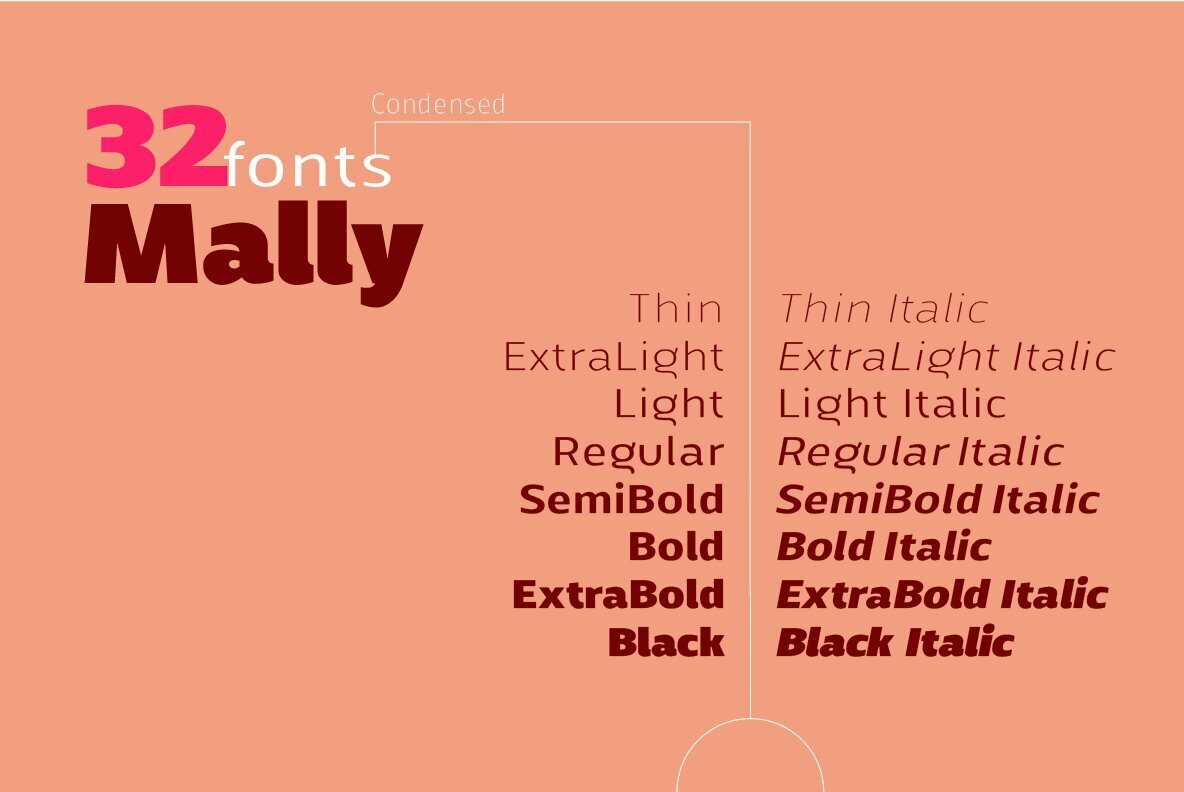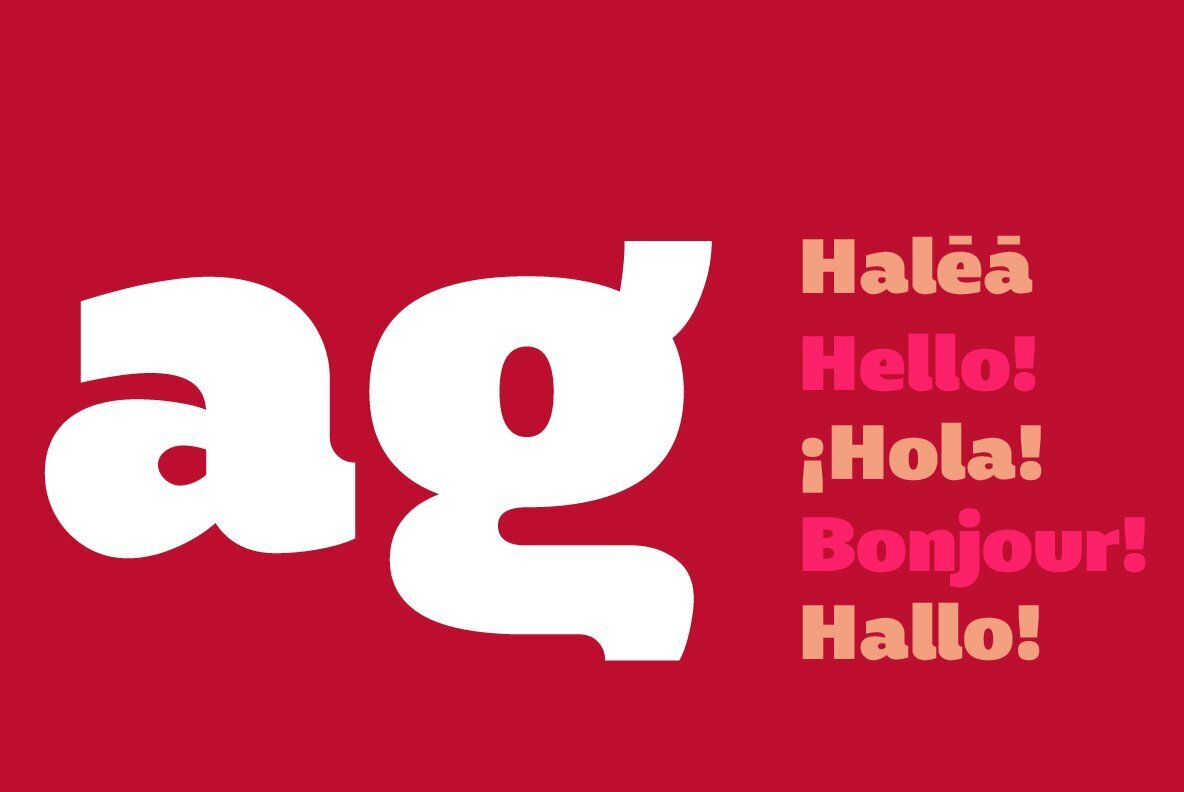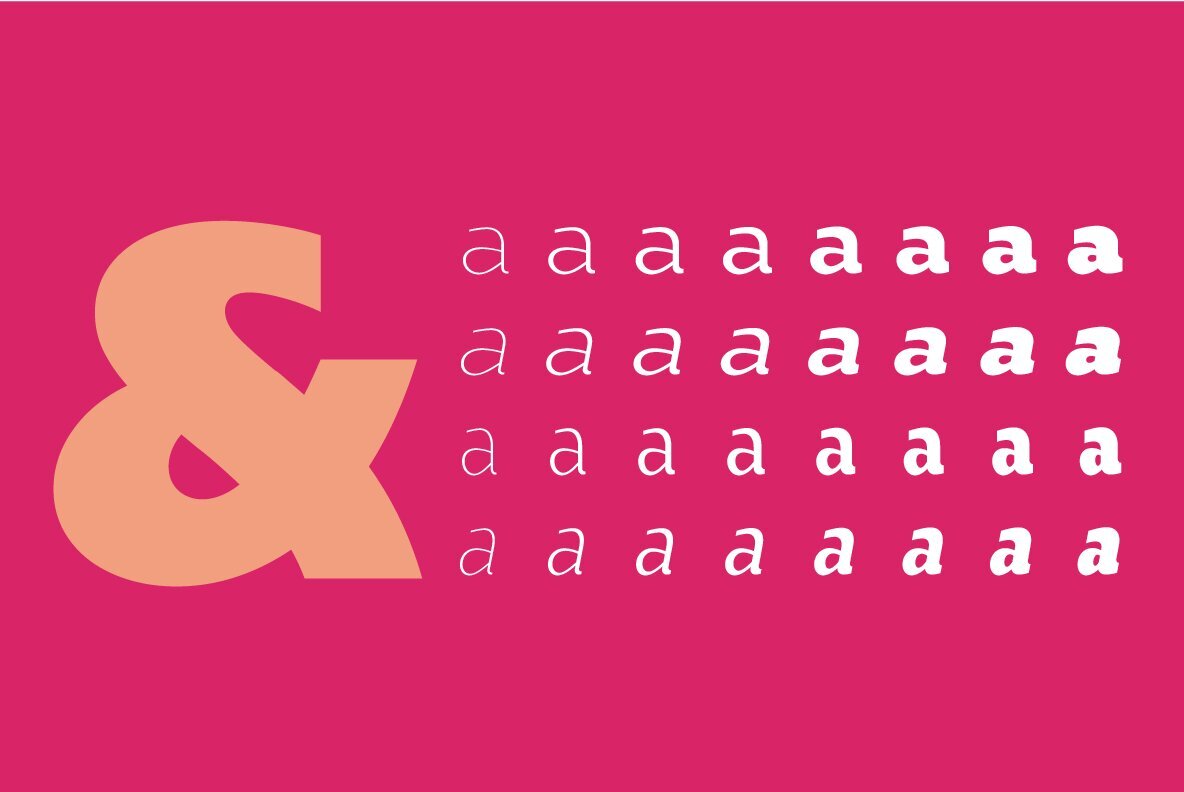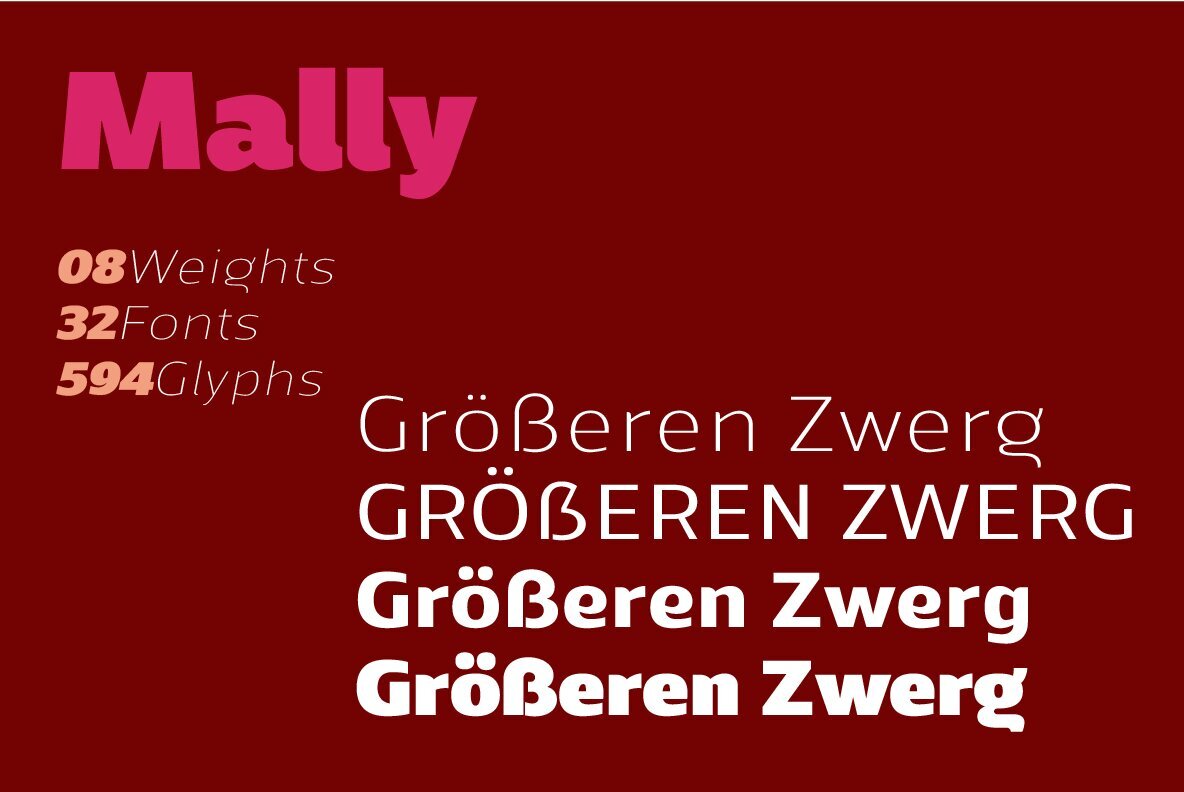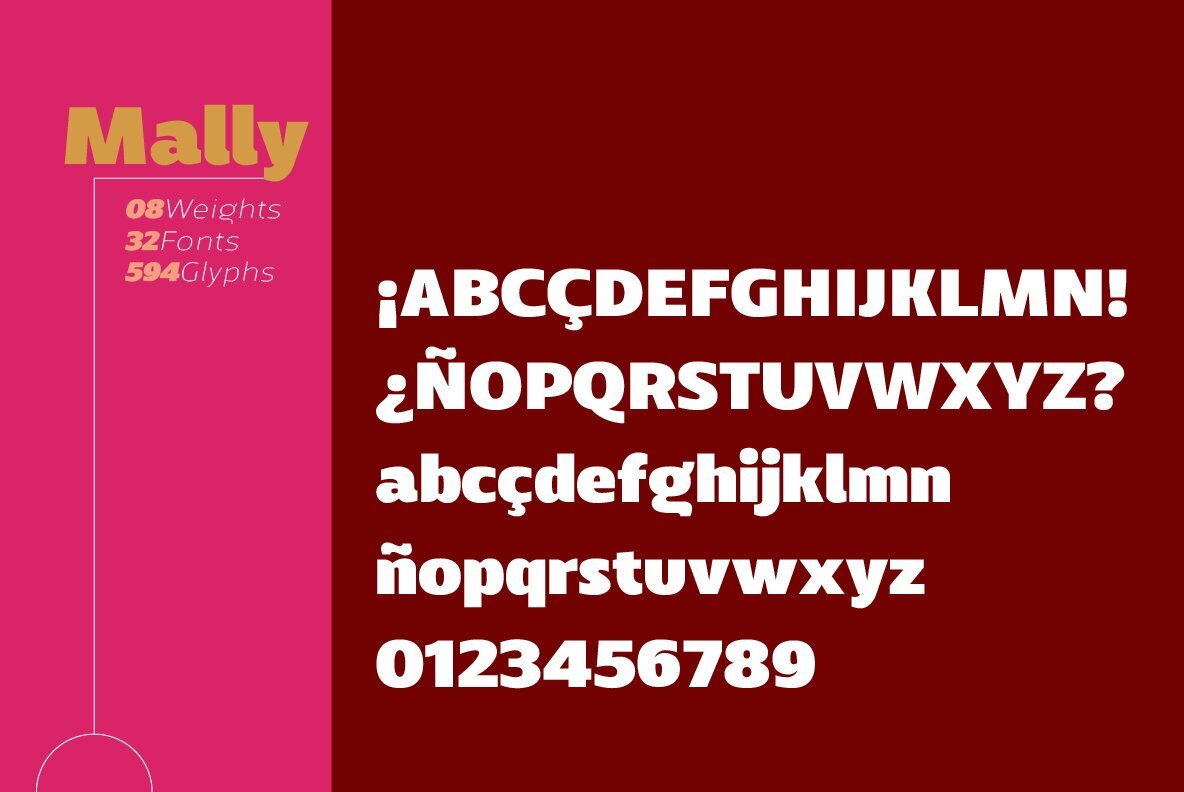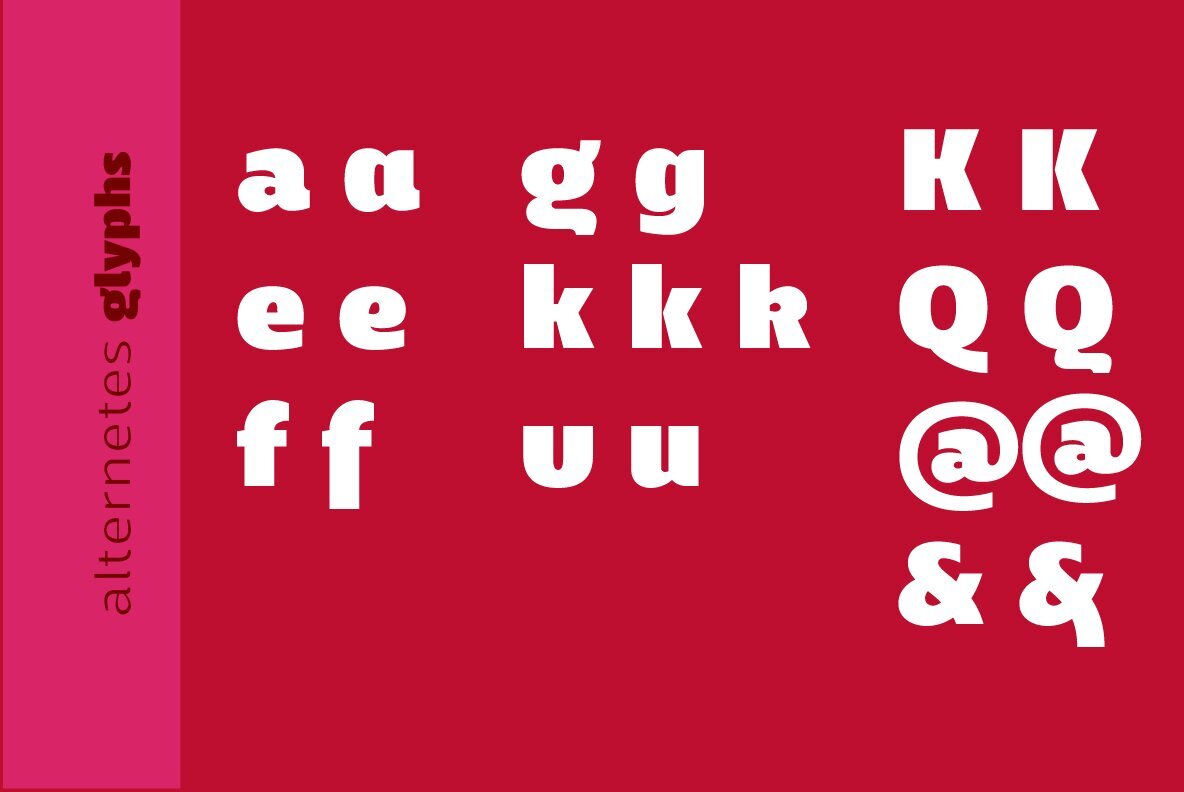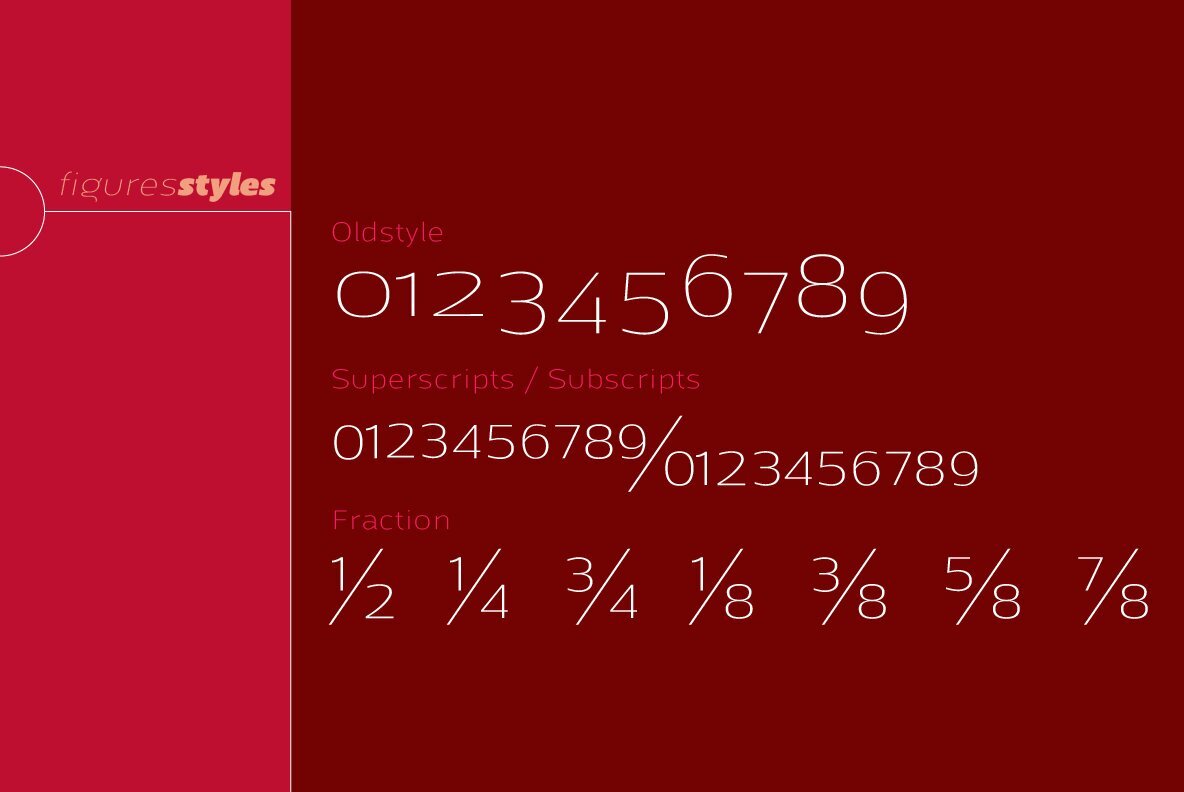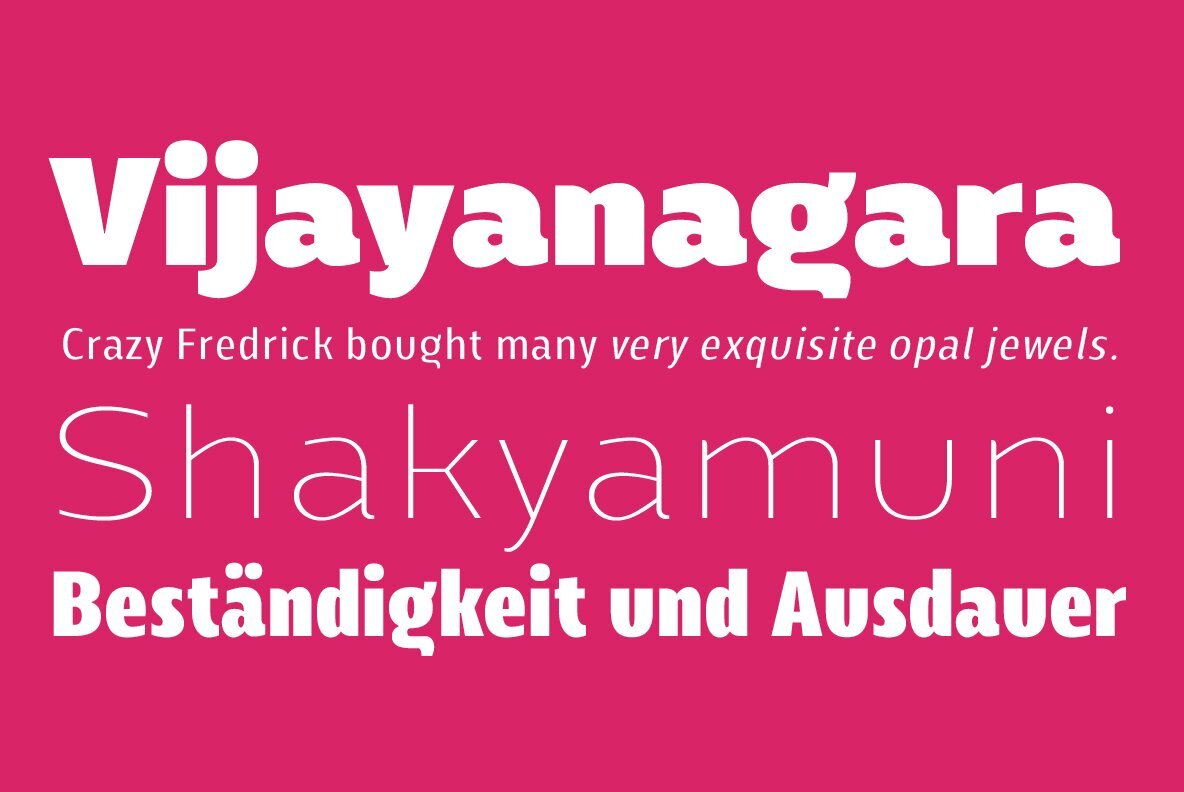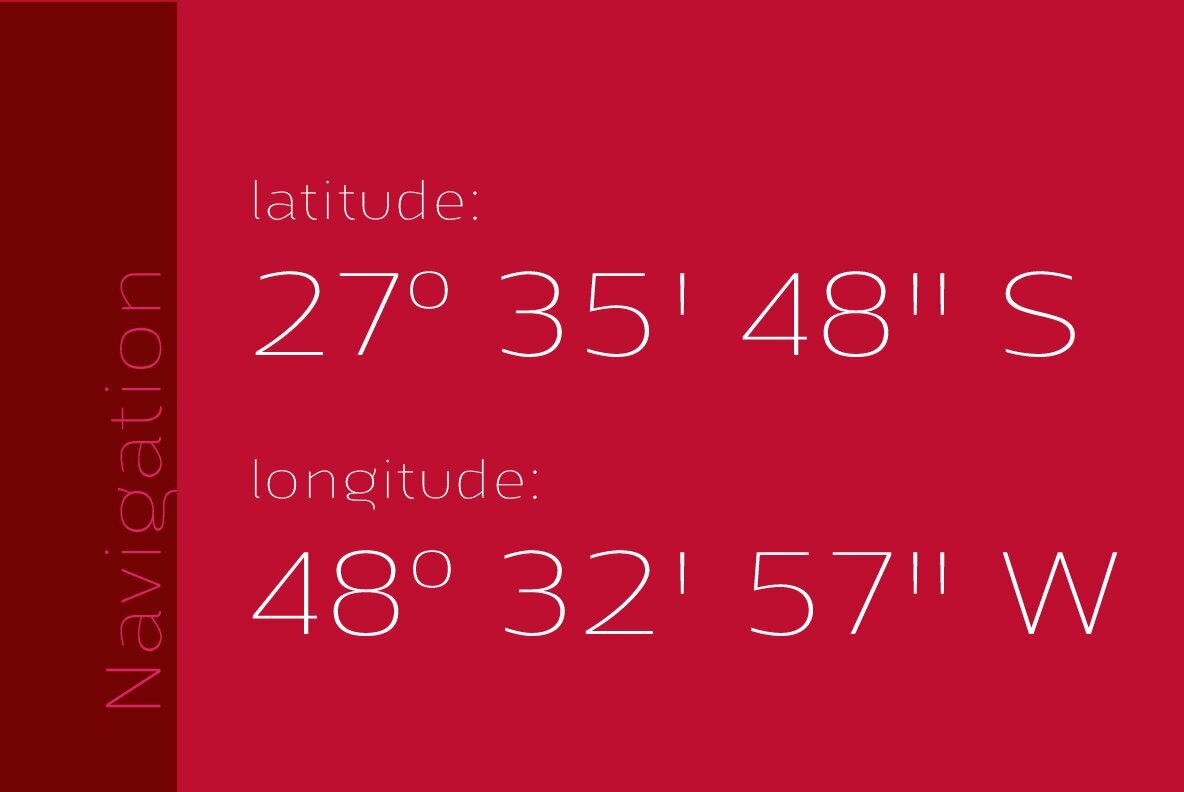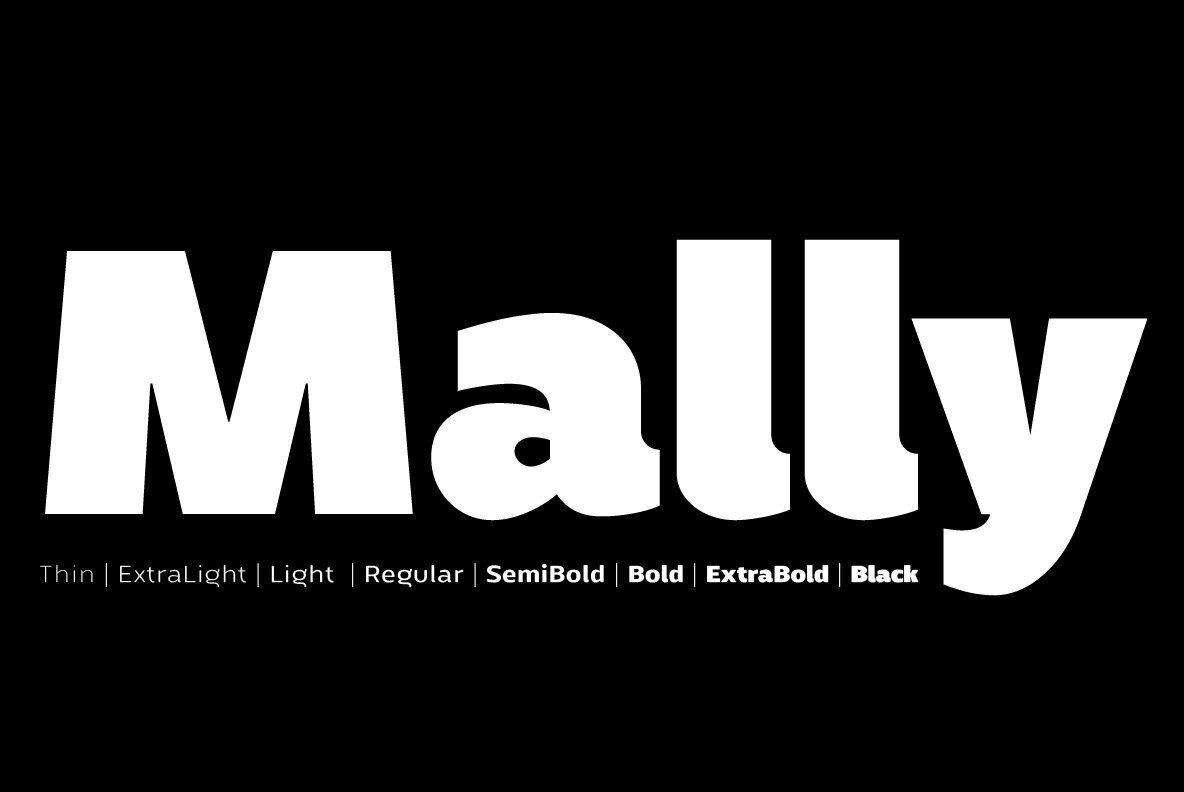
Mally Font
Mally is a family of humanist fonts, sans serif with 32 styles, variable with 08 normal and condensed weights and their respective italics, with 594 characters in each font, offers alternative characters, was conceived as a variable font encompassing various weights and widths. Characterized by its excellent readability even in the smallest sizes, with a contemporary design it has a wide support of Latin languages.